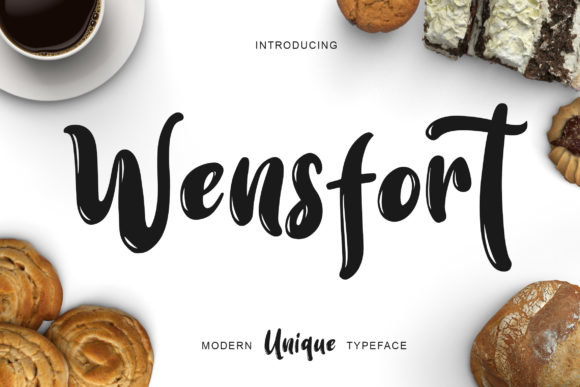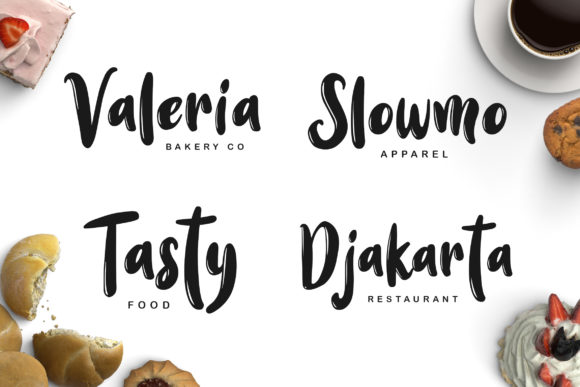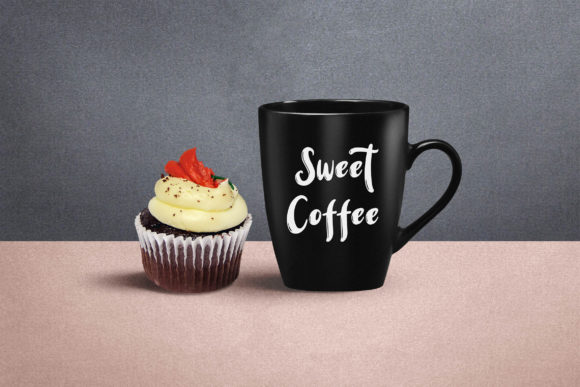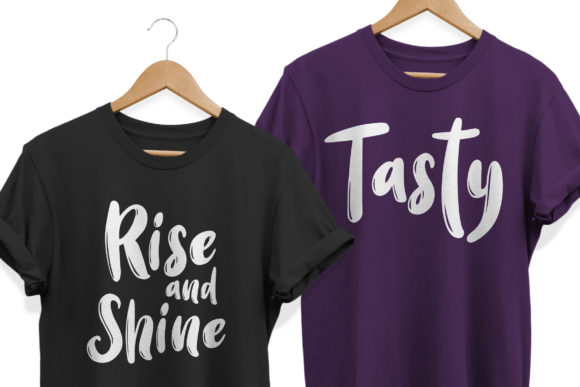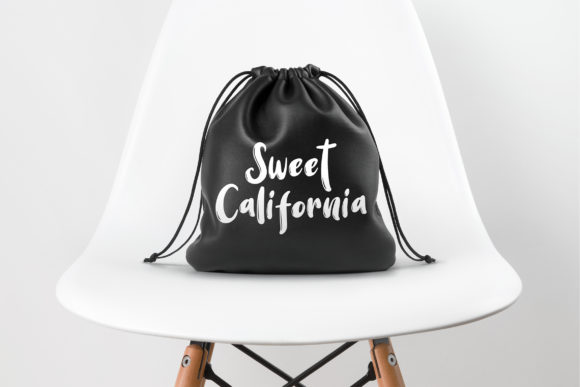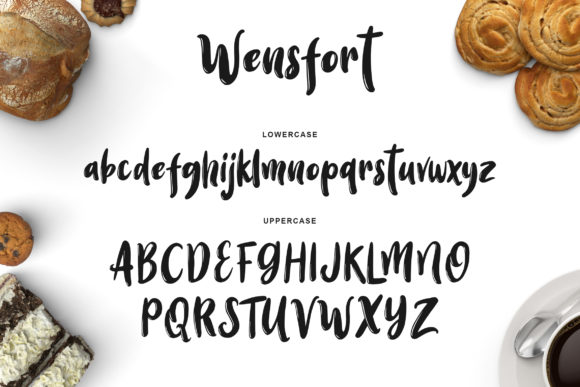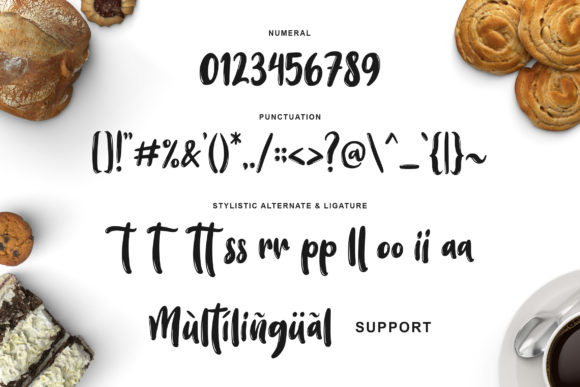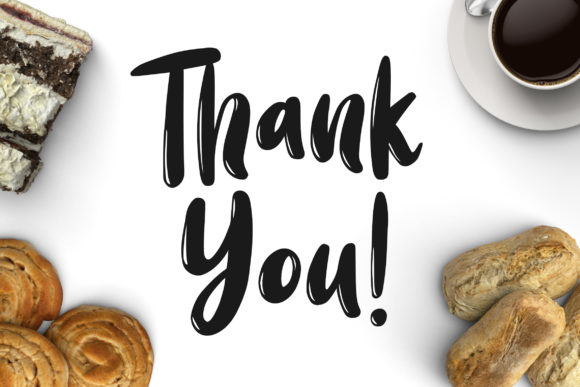
Wensfort Font
About Wensfort Font
Wensfort is a unique and playful handwritten font with a smart feel. Get inspired by its unique feel, and turn any design project into a stand out!